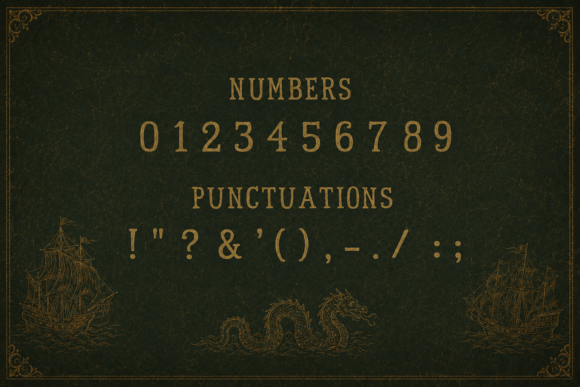
Introduction to Frenda Font
Frenda is a unique and expressive serif display font inspired by the charm and authenticity of a real place.
| 👤 Author | Aladin |
Designed with a playful yet refined personality, this typeface blends handcrafted warmth with modern elegance, making it perfect for creatives who want something distinctive and full of character With its slightly irregular shapes and organic flow, Frenda captures the beauty of human touch while maintaining excellent readability.
Key Features of Frenda Font